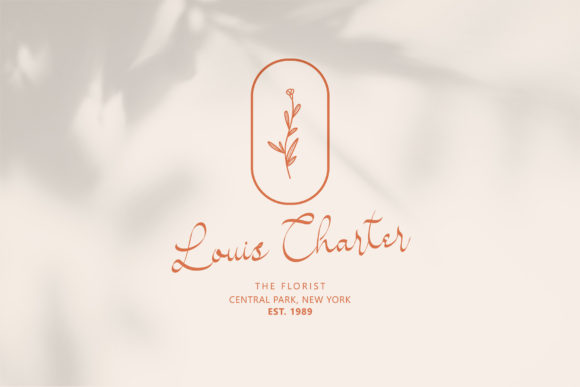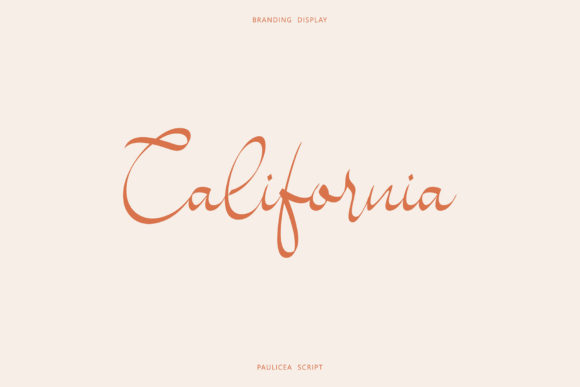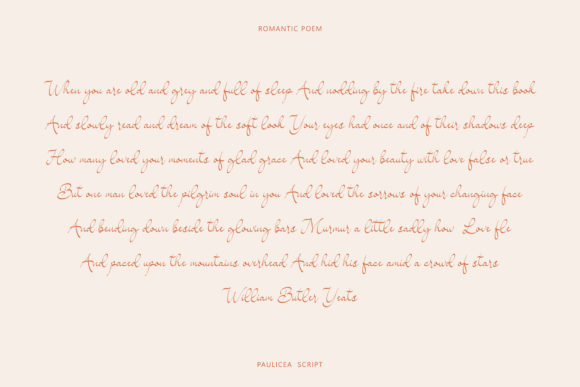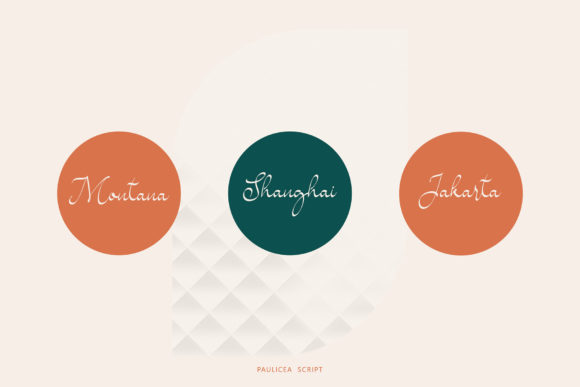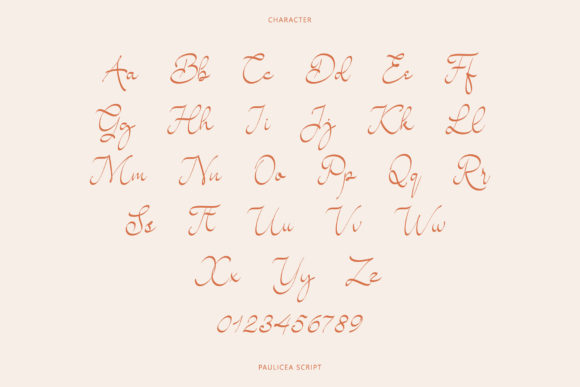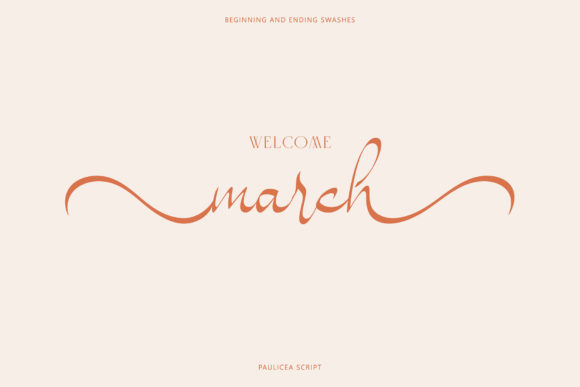
Introduction to Paulicea Font
Paulicea is a delicate, classy and flowing script font.
It has beautiful and well balanced character and as a result, it matches a wide pool of designs This font is PUA encoded which means you can access all of the glyphs and swashes with ease.